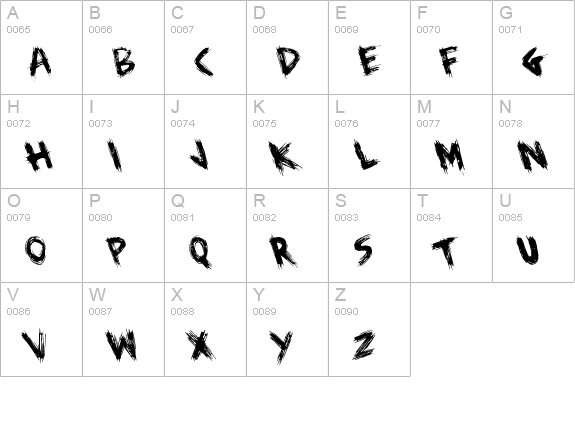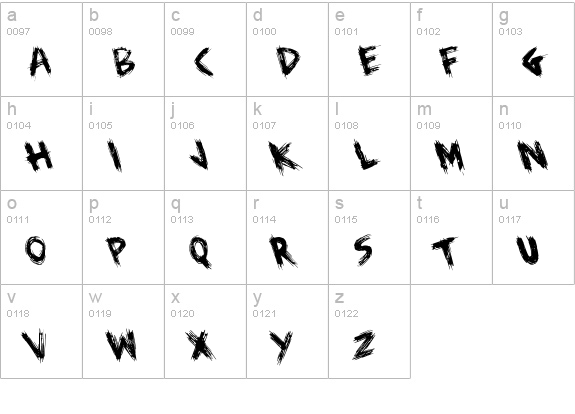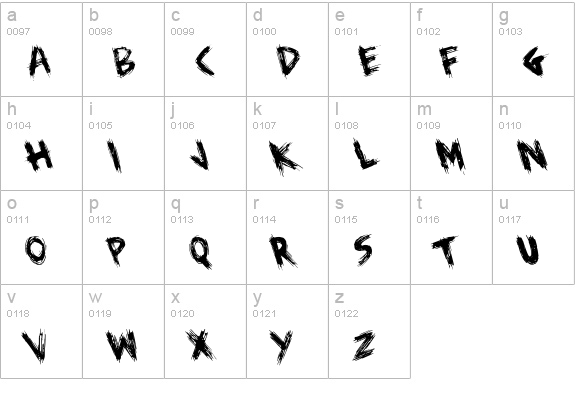
Introducing Warehouse Dog font, a captivating and versatile typeface that will add a touch of playfulness and charm to your designs. This font is the perfect choice for those seeking a unique and quirky look, as it effortlessly combines boldness with a friendly demeanor. Warehouse Dog font boasts a wide range of characters, including uppercase and lowercase letters, numbers, and various punctuation marks. Its distinctive letterforms are carefully crafted, exuding a sense of energy and character that will make your text stand out from the crowd. One of the most remarkable aspects of Warehouse Dog font is its versatility. Whether you're working on a logo, a poster, a website, or any other design project, this font will adapt effortlessly to any context, enhancing the visual impact of your work. But the best part? Warehouse Dog font is available for free! That's right, you can easily download this font, without any cost, at FontsMarket.com. This generous offer allows you to explore the endless possibilities of Warehouse Dog font without breaking the bank. So, why wait? Unleash your creativity and let Warehouse Dog font infuse your designs with its quirky charm and undeniable appeal. Download this free font today and embark on a typographic adventure like no other.